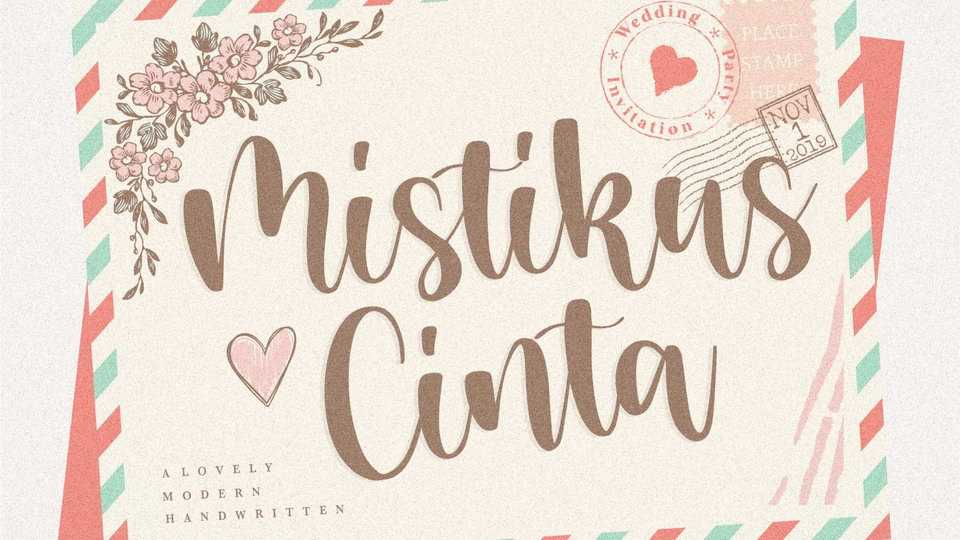
Download Mistikus Cinta font, a lovely modern calligraphy typeface. Mistikus Cinta is perfect for product packaging, branding project, magazine, social media, wedding, or just used to express words above the background.